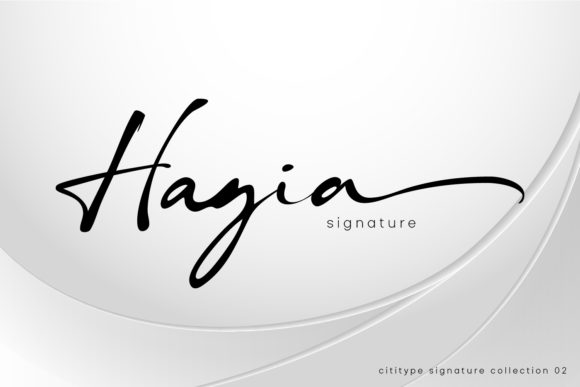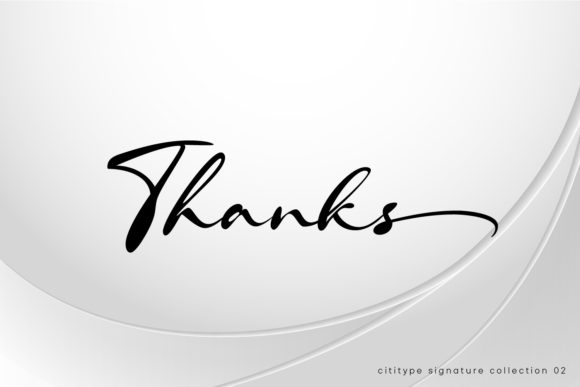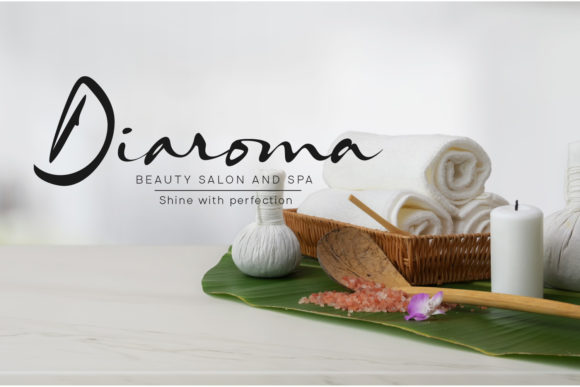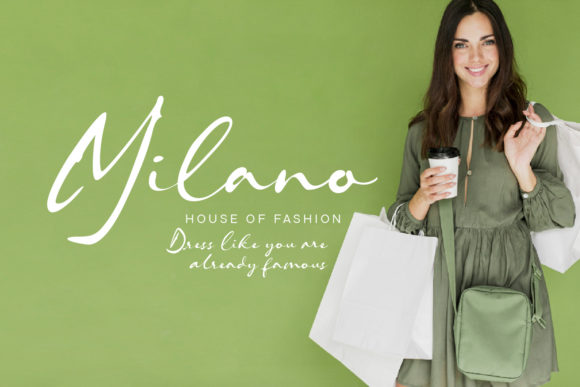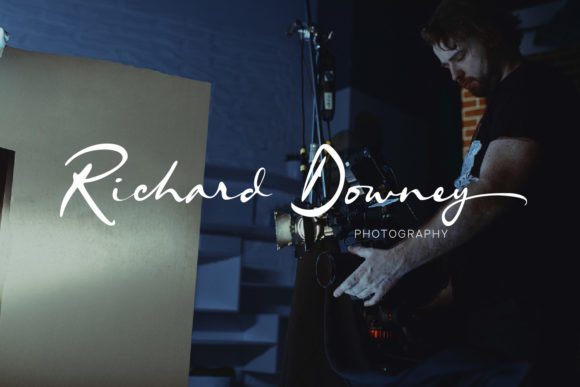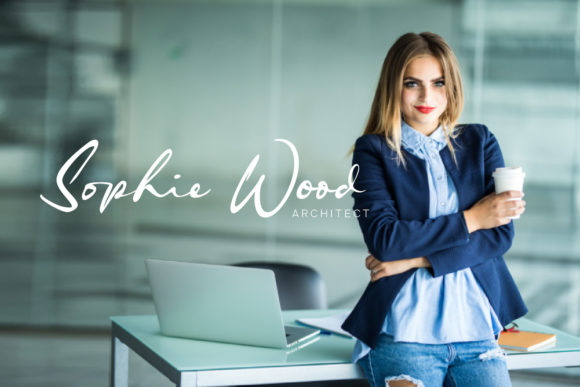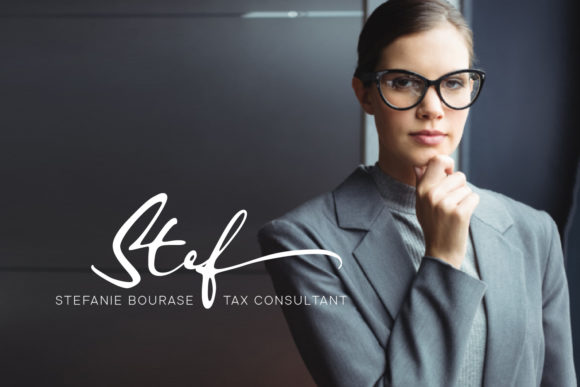
Hagia Font
About Hagia Font
Hagia is a unique, elegant and timeless handwritten font. Distinct and delicate, this font will elevate each of your designs, both formal and casual. This font is PUA encoded which means you can access all of the glyphs and swashes with ease!